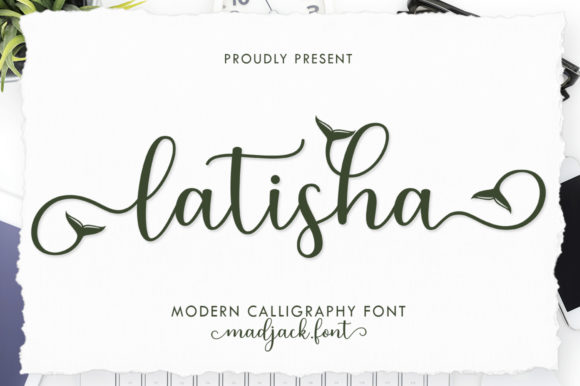
Embrace the captivating charm of Latisha, a script font that dances across your designs with playful elegance. Its enchanting curves and graceful strokes bring a touch of whimsy to any project, adding a personal touch that resonates with viewers.
**Key Features:**
* **Seductive Script:** Latisha's alluring script style captures the essence of romance and beauty, making it the perfect choice for love letters, wedding invitations, and any design that aims to stir the heart.
* **Enchanting Glyphs and Swashes:** Explore the world of Latisha's PUA-encoded glyphs and swashes, effortlessly accessible to add intricate details and flourishes to your creations. Unleash your creativity and let your designs bloom with personality.
**Why Choose Latisha?**
* **Unleash Your Creative Spirit:** Latisha liberates your creativity, allowing you to craft designs that captivate and inspire. Its versatility shines in a myriad of projects, from heartfelt messages to eye-catching branding.
* **Stand Out from the Crowd:** Infuse your designs with a distinctive charm that sets them apart from the ordinary. Latisha's unique style ensures that your creations exude originality and leave a lasting impression.
* **Connect with Your Audience:** Let Latisha be your messenger of love and connection. Its flowing lines and delicate details resonate with viewers, creating a bond that transcends words.